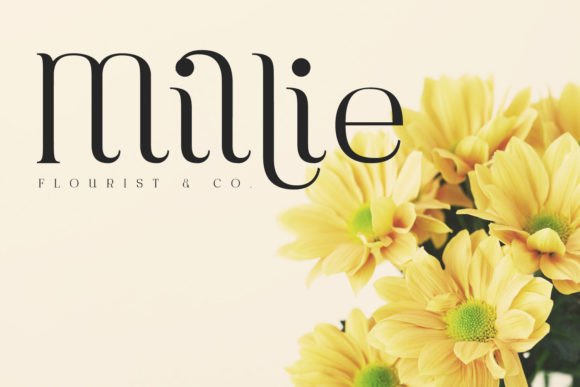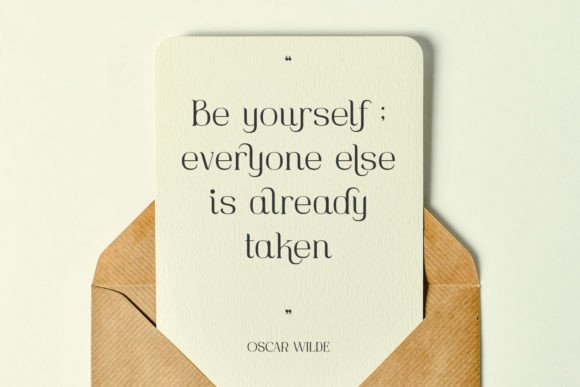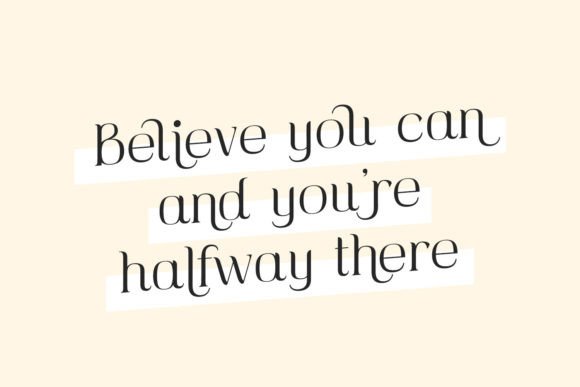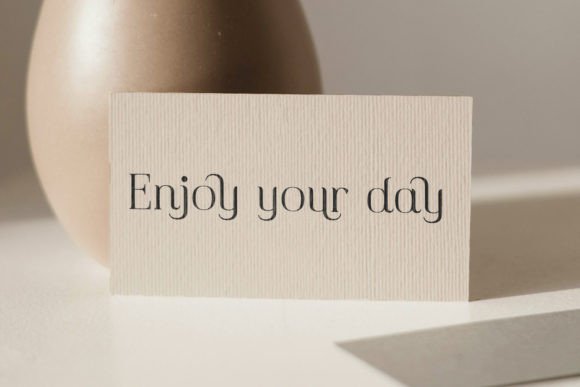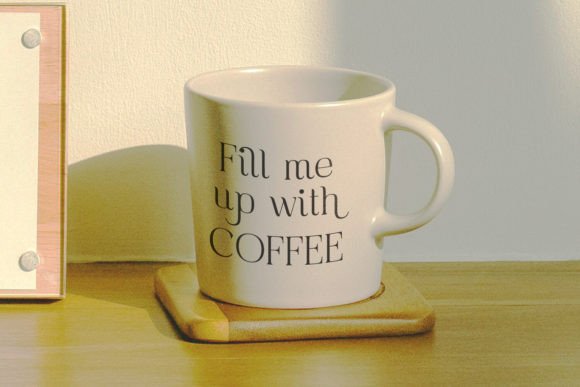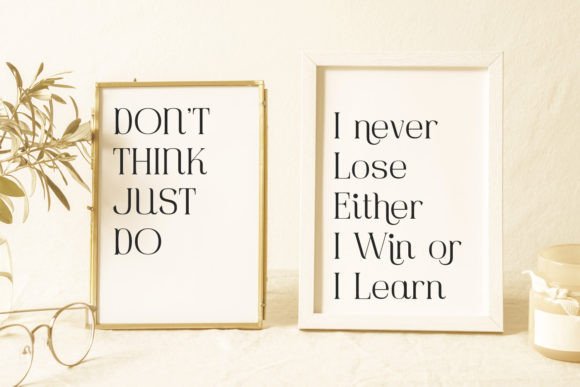
Introduction to Crosmail Font
Have you ever stared at a blank canvas, searching for the perfect font to bring your creative project to life? The moment when the words start flowing, and your design begins to take shape, is one of the most thrilling experiences for designers. And what if I told you that there’s a font that can elevate your work to the next level, effortlessly balancing elegance with modernity?
Meet the Crosmail Font, a refined serif display font that has been making waves in the design community. With its sophisticated design and high-quality strokes, this font is a valuable resource for designers seeking to add a touch of refinement and sophistication to their projects. Whether you’re working on a branding project, creating a stunning poster, or designing a website with a transparent background, the Crosmail Font is sure to impress.
Available for free download, the Crosmail Font is a must-have for any designer looking to take their work to new heights. Its light weight and visible letter contrast make it an excellent choice for projects that require a high level of visual interest and clarity.
Key Features of Crosmail Font
- High-quality design resource with a transparent background, ideal for creative projects that require a modern and sleek aesthetic.
- Unique characteristics include a clean and minimalist design, making it perfect for branding, logos, and other visual identity elements.
- Designed to be highly legible and versatile, the Crosmail Font is suitable for use in a variety of contexts, from digital interfaces to print materials.
- Comes with a comprehensive character set, including uppercase and lowercase letters, numbers, and punctuation marks, making it a valuable design resource.
Honest Review: Crosmail Font
I recently came across the Crosmail Font, and I must say it’s a great addition to any designer’s toolkit. As a designer, I appreciate fonts that are versatile and can be used in a variety of creative projects. The Crosmail Font delivers on this front, offering a unique and stylish design that’s perfect for headers, titles, and other display text.
- ✨ Unique and stylish design
- ✨ Versatile and can be used in various creative projects
- ✨ High quality and transparent background
Overall, the Crosmail Font is a solid choice for designers who are looking for a unique and stylish font for their creative projects. While it has some limitations, its high quality and free download make it a great resource for designers on a budget.
Crosmail Font is ideal for creative projects such as graphic design, branding, and digital art. Its unique design makes it perfect for logos, posters, and other visual elements that require a distinctive touch.
Q: Is the Crosmail Font suitable for use in digital signage or large-scale displays?
The Crosmail Font is a high-quality font that’s designed to be clear and readable at a variety of sizes. While it’s not specifically designed for use in digital signage or large-scale displays, it can be used in these contexts with great success. However, designers may need to adjust the font size and styling to ensure optimal legibility.